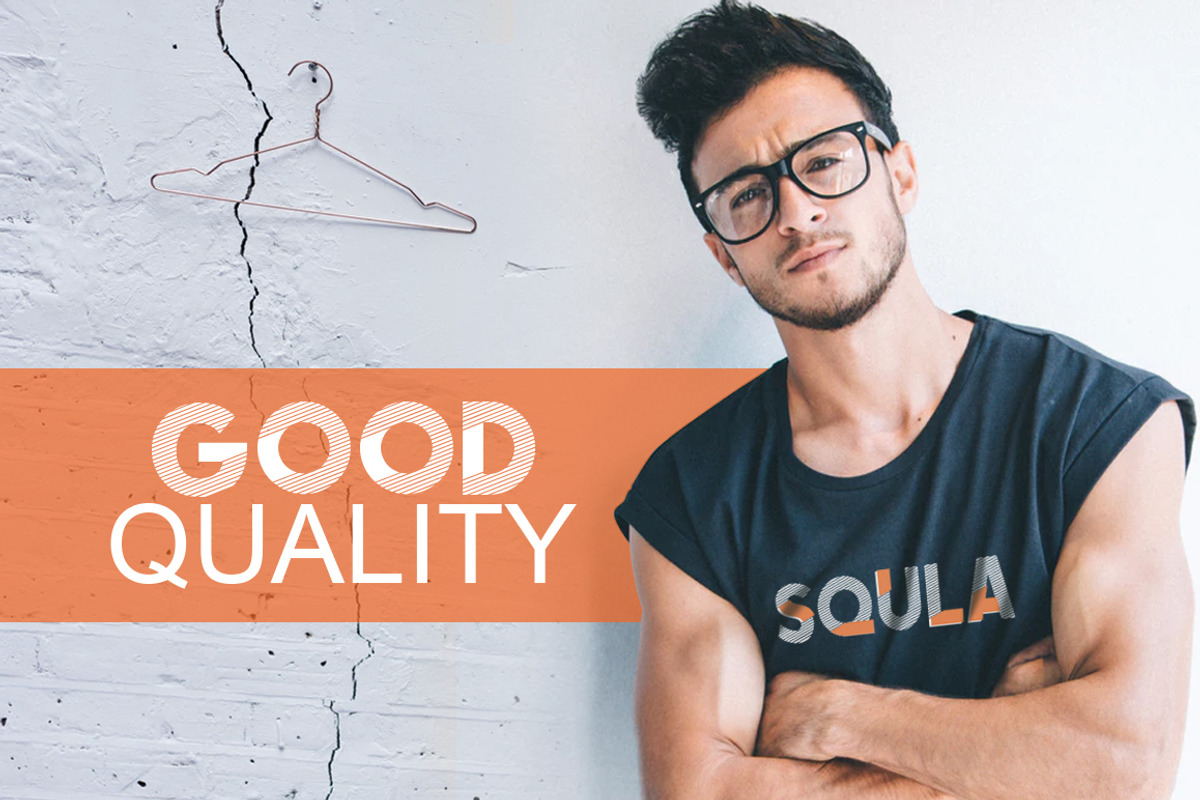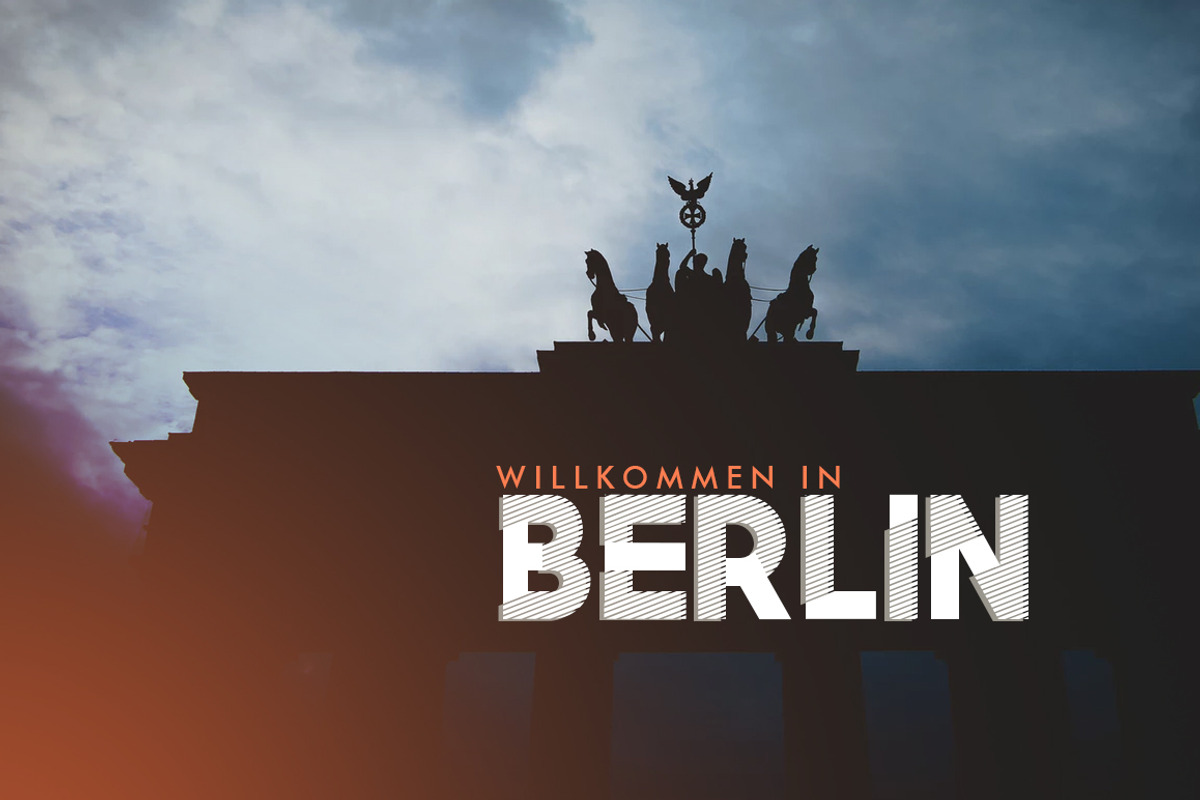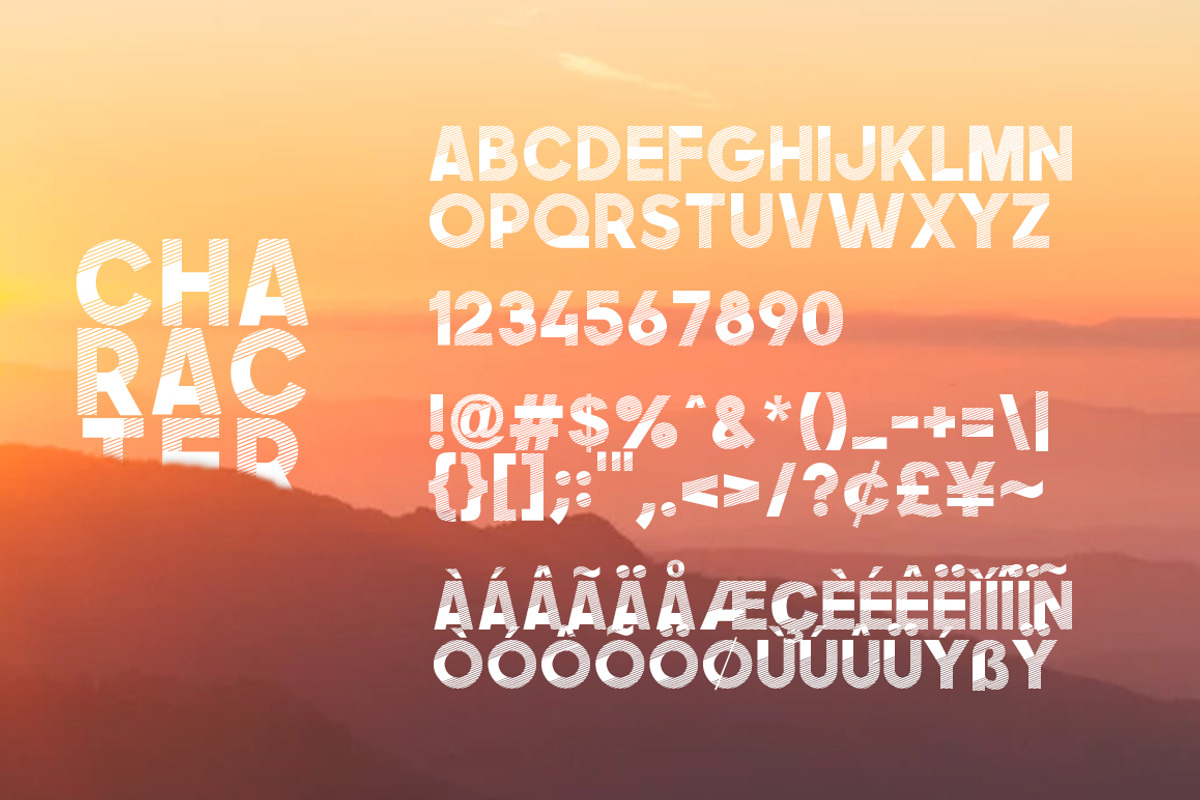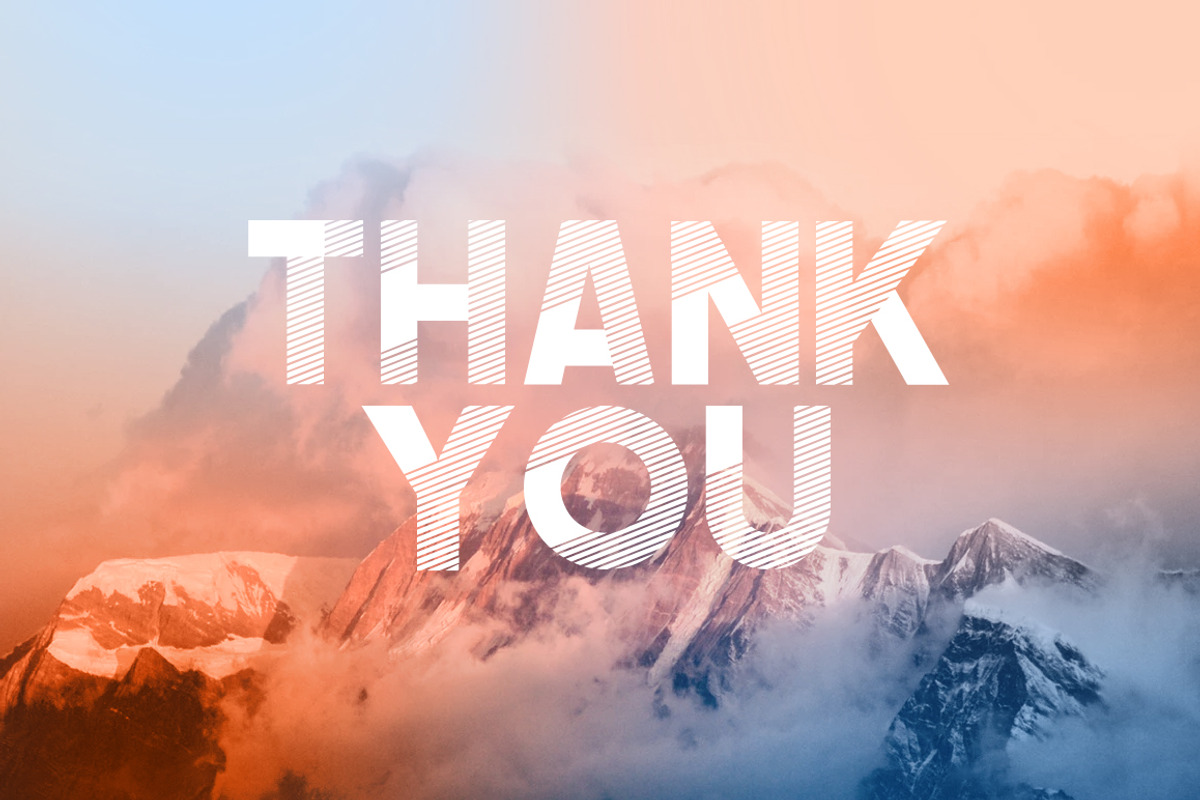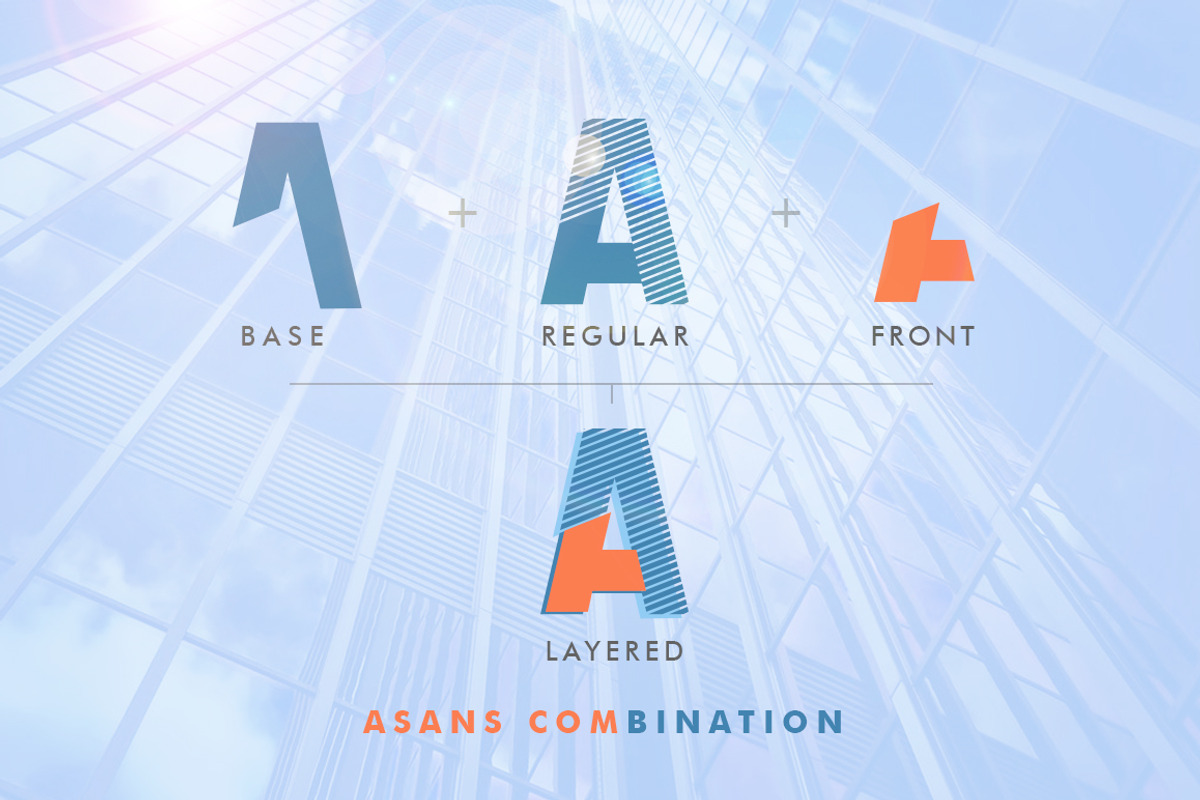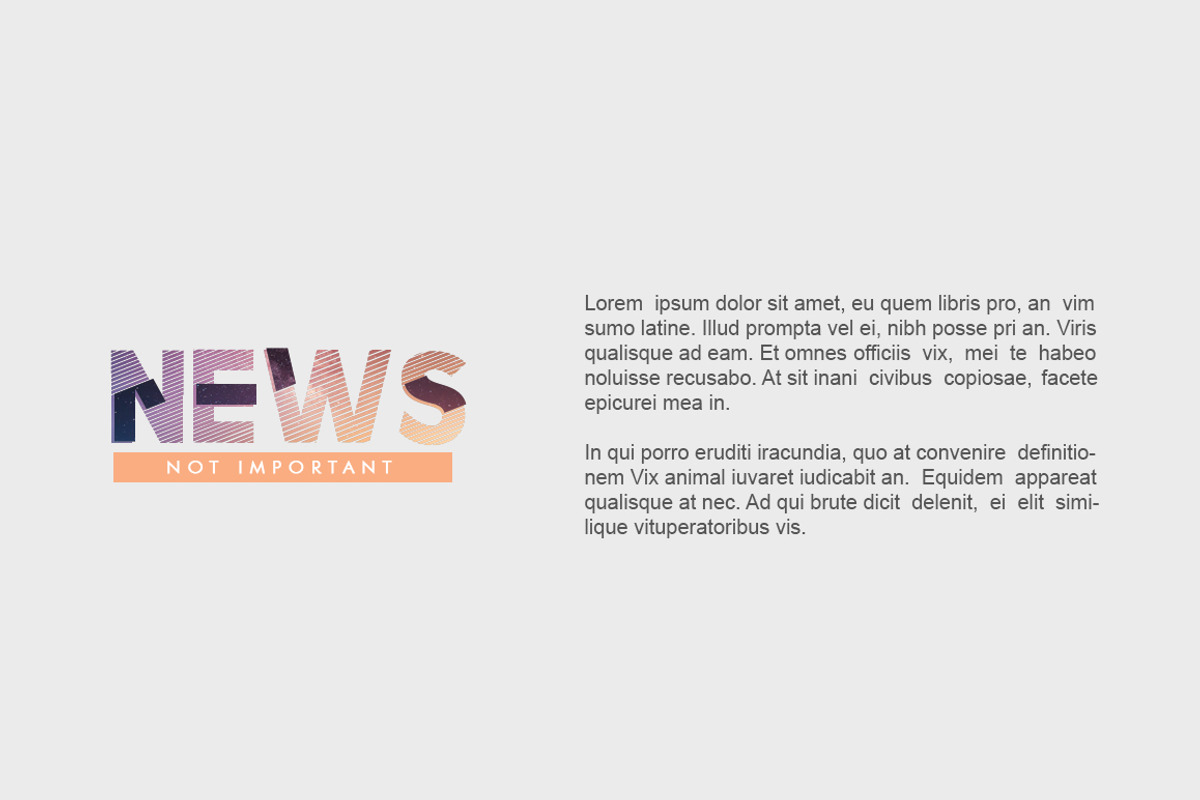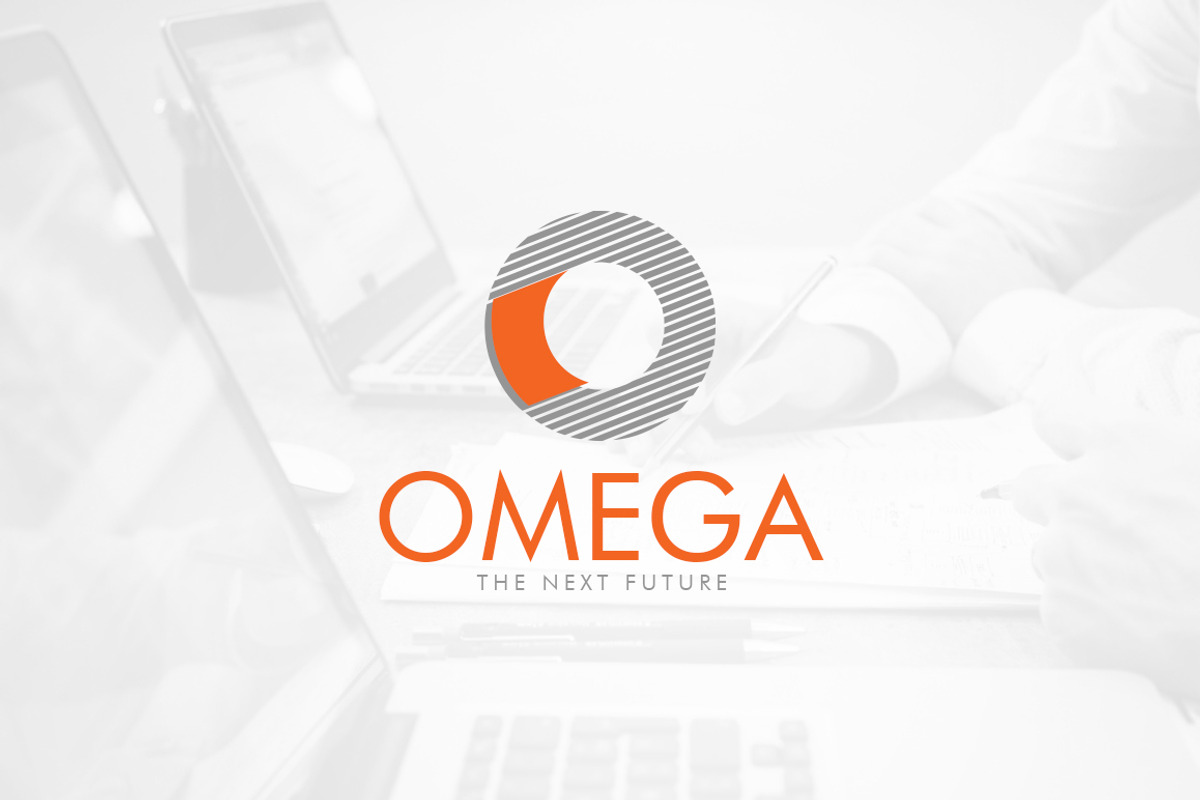
Asans Layered Font
Asans Font a bold display layered typeface and awesome character with 3 different style, regular, front and base. Asans font support multilanguage & used with layers method. Asans it’s perfect for namecard, poster, logo, magazine, cover, banner, tshirt and headers, or even large-scale artwork.
Asans Layered Font by khurasan fits naturally into Branding, posters, packaging, typography.